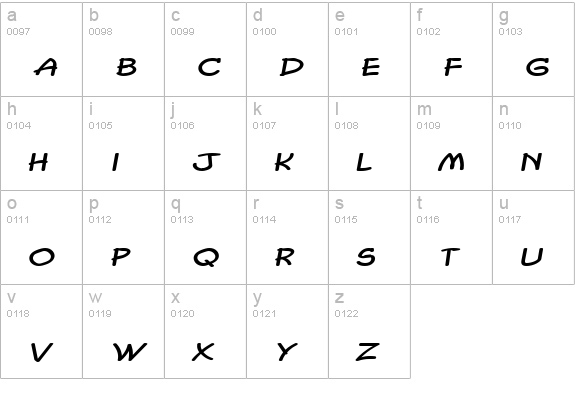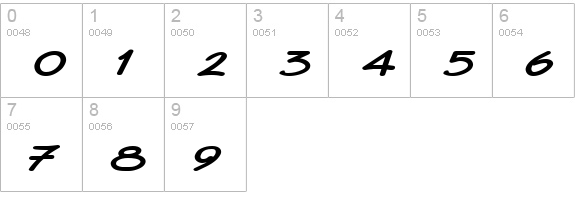
Chasm Extended Italic Font Details
Chasm Extended Italic is a distinctive, extended-width, italic variant in the Chasm typeface family \xE2\x80\x94 well suited to design and typography projects.
Chasm Extended Italic font is a sleek and modern typeface that exudes elegance and sophistication. Its italicized design adds a touch of flair and style to any project, making it perfect for creative designs, branding, and editorial work. The elongated letterforms and clean lines of Chasm Extended Italic create a sense of movement and flow, making it a versatile choice for a wide range of applications. Best of all, this stunning font is available for free download at FontsMarket.com. Whether you're a designer looking to add a unique touch to your projects or a business in need of a fresh and modern font for your branding, Chasm Extended Italic is the perfect choice. Download it today and elevate your designs with this beautiful and eye-catching typeface.